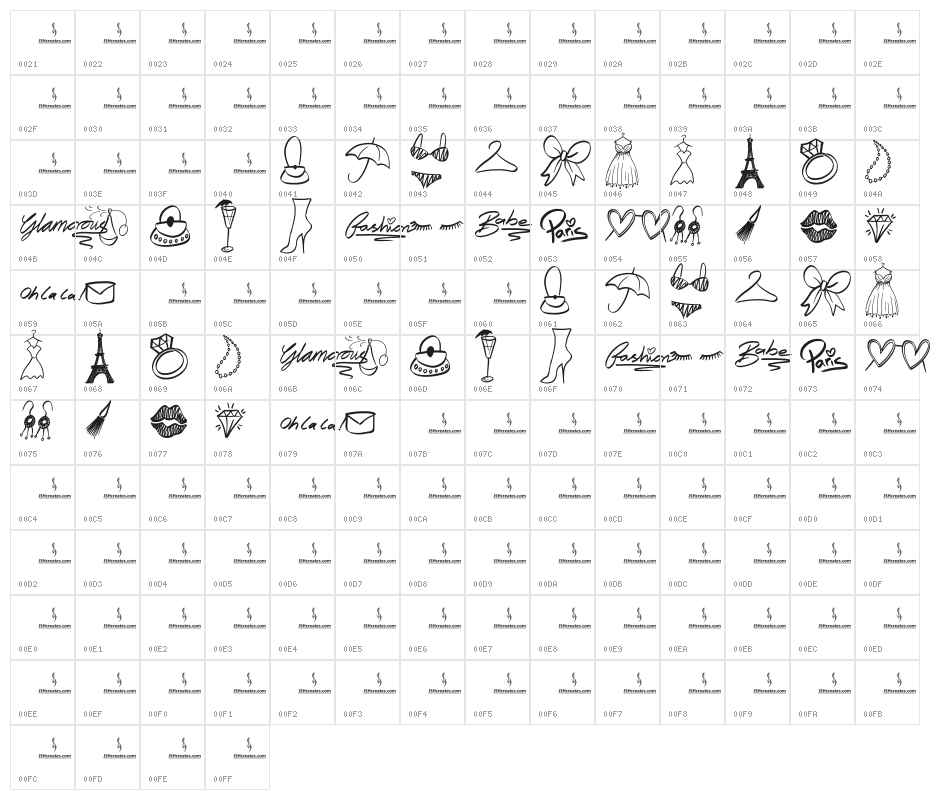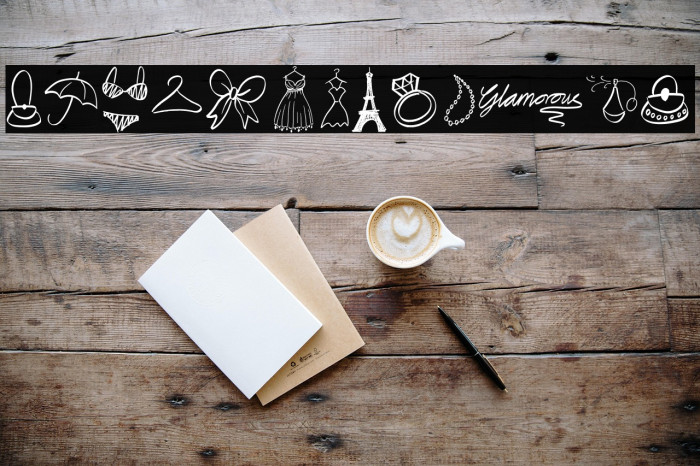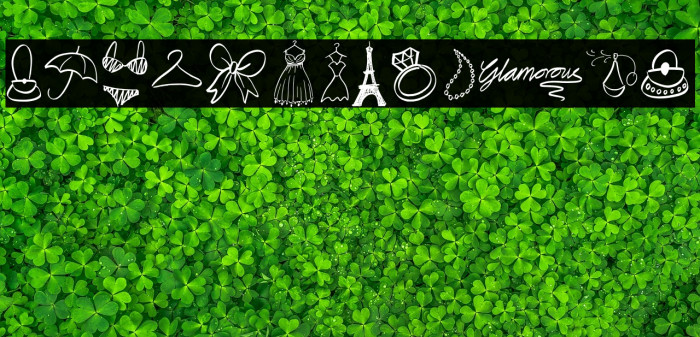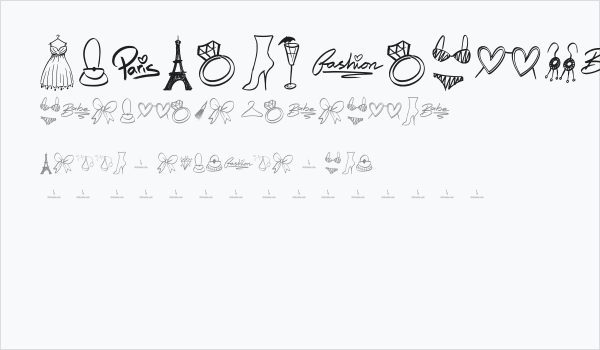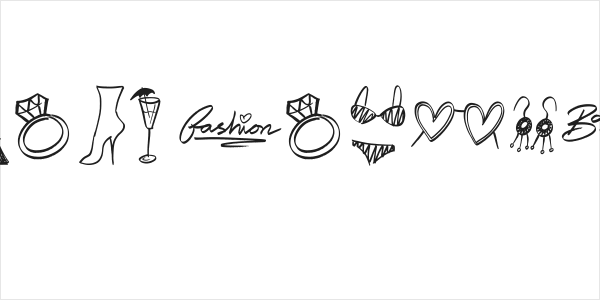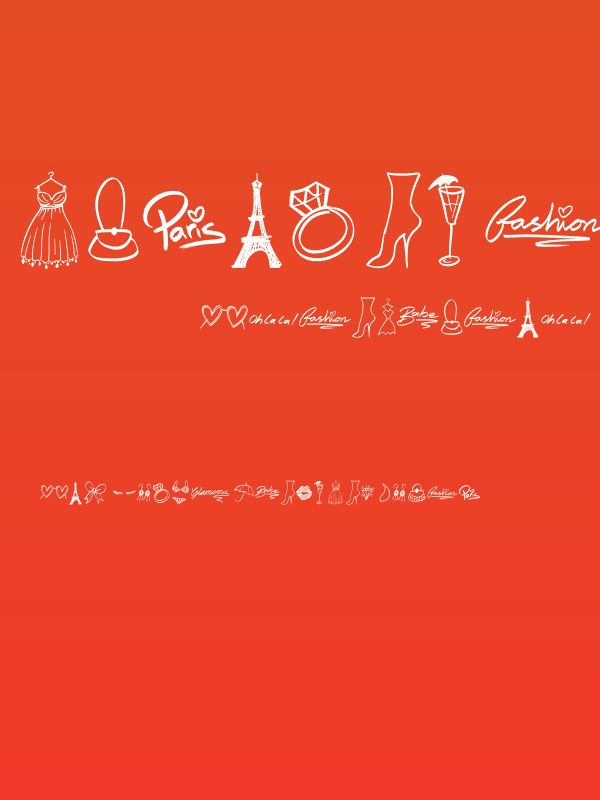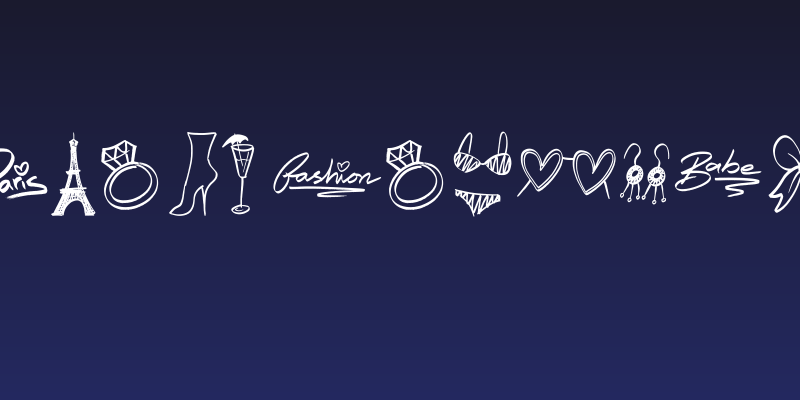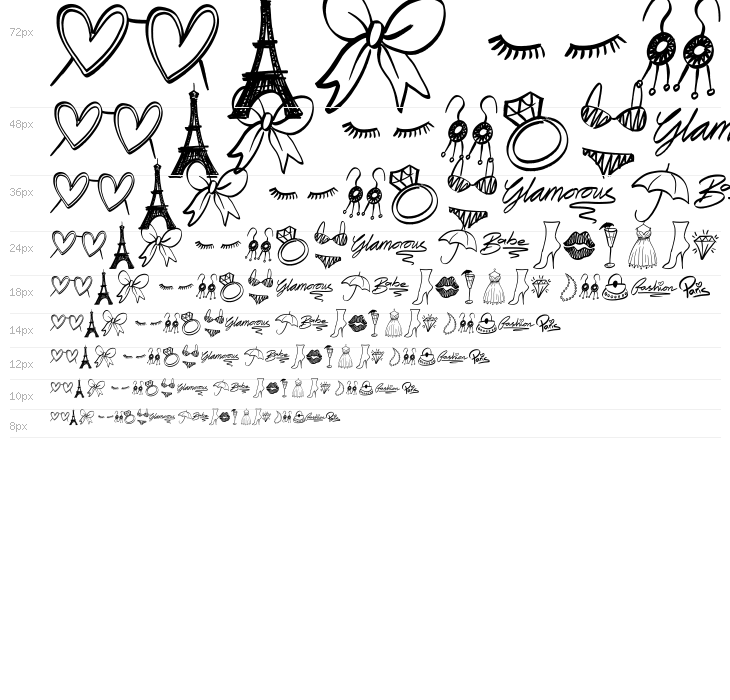
Fashion Pictures Font
Fashion Pictures Description
This collection features a playful and stylish set of fashion-themed icons and words, perfect for adding a chic touch to any project. The icons include handbags, umbrellas, lingerie, hangers, bows, dresses, the Eiffel Tower, rings, necklaces, and more, each drawn with a whimsical flair. The words 'Fashion', 'Babe', 'Paris', 'Glamorous', and 'Oh La La!' are presented in a handwritten style, exuding a sense of elegance and trendiness. The overall design is cohesive, with a consistent line weight and a balance between the illustrative elements and the text. This set is ideal for fashion-related designs, offering a unique and trendy aesthetic that captures the essence of style and sophistication.
| Use Case | Logos, Headlines, Decorative elements |
| Proposed Projects | Ideal for fashion blogs, boutique branding, social media graphics, and stylish event invitations. |